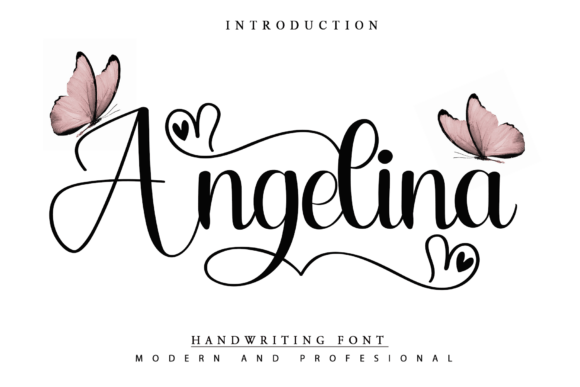
Discover the Timeless Elegance of Angelina Font
Have you ever stumbled upon an old, leather-bound book in a vintage store, and as you flip through its yellowed pages, you’re captivated by the beautiful handwriting that fills the margins? That’s the moment when creativity strikes, and the idea for a new project begins to take shape. For designers and writers alike, there’s something special about working with a font that not only enhances the beauty of their projects but also evokes a sense of history and tradition.
Enter Angelina Font, a stylish handwritten font that embodies the perfect blend of contemporary atmosphere and timeless classic calligraphy. Designed to elevate the beauty of your projects, Angelina Font is the perfect choice for designers looking to add a touch of sophistication and elegance to their work. With its balanced and varied style, this font is sure to leave a lasting impression on your audience.
Whether you’re working on a branding project, a wedding invitation, or a novel, Angelina Font is the perfect companion to help you bring your vision to life. Its impeccable form and versatile design make it a valuable asset for any designer looking to create truly memorable projects.
Angelina Font Key Features
- Font Family: Angelina is a script font family, specifically designed for elegant and sophisticated typography.
- Size: The font family includes multiple weights, ranging from Thin to Extra Bold, with 8 styles in total, each available in 3 font sizes (Small Caps, Regular, and Alternate).
- Resolution: Angelina Font is optimized for use at high resolutions (up to 300 DPI), making it suitable for print and digital applications.
- Unique Characteristics: The font features intricate connections between letters, giving it a handwritten feel, while maintaining legibility and readability.
- Language Support: Angelina Font supports a wide range of languages, including Latin, Cyrillic, and Greek alphabets.
Angelina Font Review
When I first saw the Angelina Font, I was immediately drawn to its elegant and sophisticated design. The font’s curves and lines create a sense of luxury and refinement, making it perfect for high-end branding or advertising campaigns. ✨ The font’s versatility also makes it suitable for a wide range of applications, from magazines to restaurant menus.
One of the standout features of Angelina is its beautiful script variant, which adds a touch of whimsy and personality to any design. The font’s italic and bold weights also provide additional options for adding emphasis and visual interest. ✨
While Angelina is a beautiful font, it does have some limitations. One of the main drawbacks is its limited character set, which may not be suitable for languages that require a wider range of characters. ⚠️ Additionally, the font’s lines can sometimes appear slightly inconsistent, which may be distracting in certain contexts.
- Limited character set
- Inconsistent line quality
Overall, I think the Angelina Font is a great addition to any designer’s toolkit. While it may have some limitations, its unique design and versatility make it a valuable asset for a wide range of projects. With some careful planning and attention to detail, I think the Angelina Font can help designers create truly stunning and effective designs. ✨
Angelina Font is ideal for designs that require a touch of elegance and sophistication. Use it for:
– Luxury product branding
– High-end fashion designs
– Fine art and photography projects
Alternatives to Angelina Font
Playfair Display is a luxurious and elegant serif font, ideal for creating a sophisticated and high-end look. It features intricate details and ornate flourishes, making it perfect for formal invitations, luxury branding, and high-end packaging. Compared to Angelina Font, Playfair Display is more formal and ornate, while Angelina Font is more modern and minimalist.